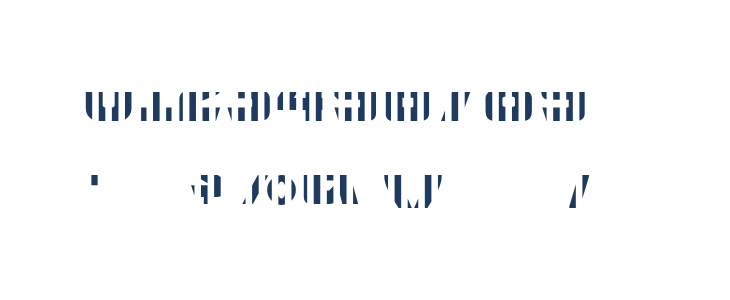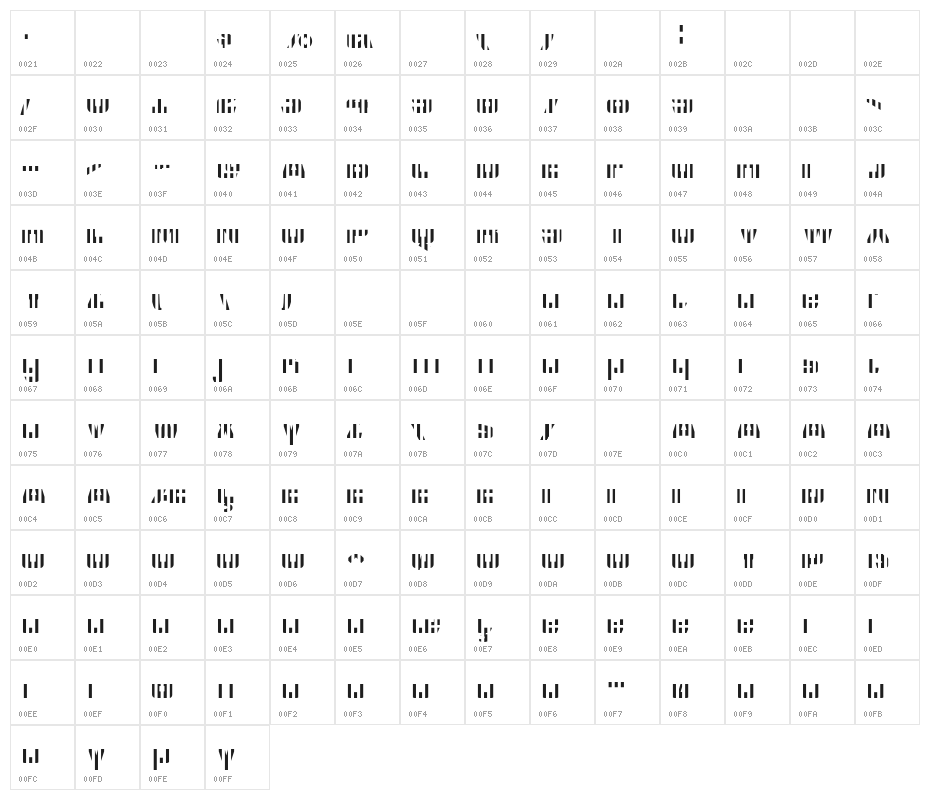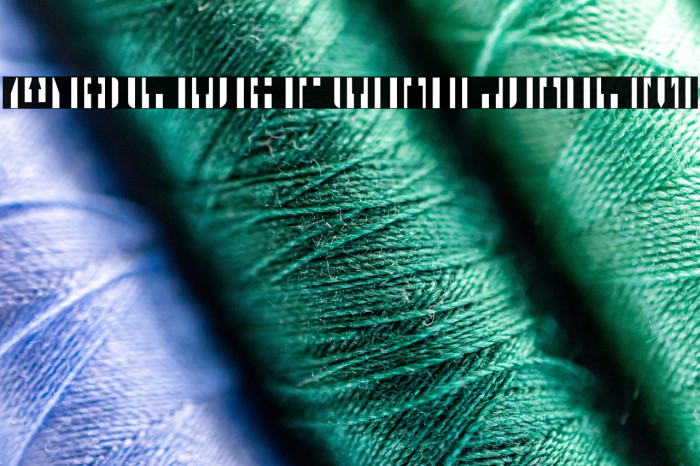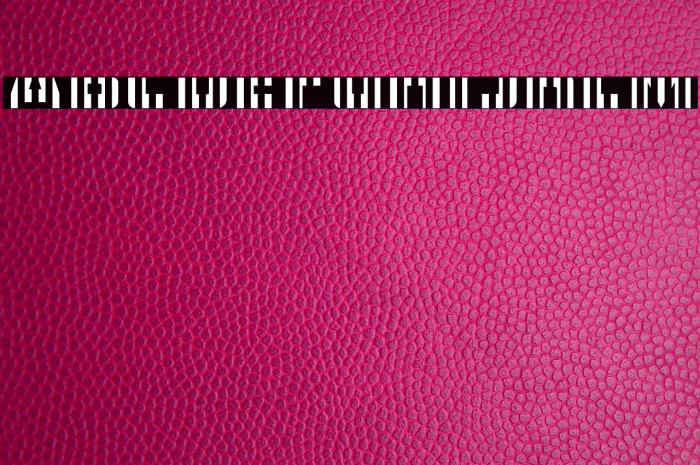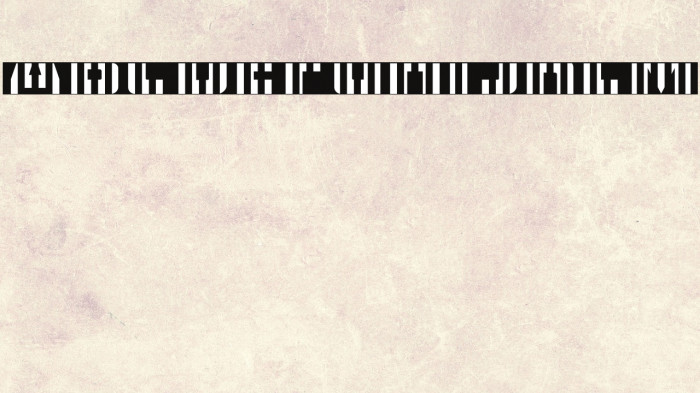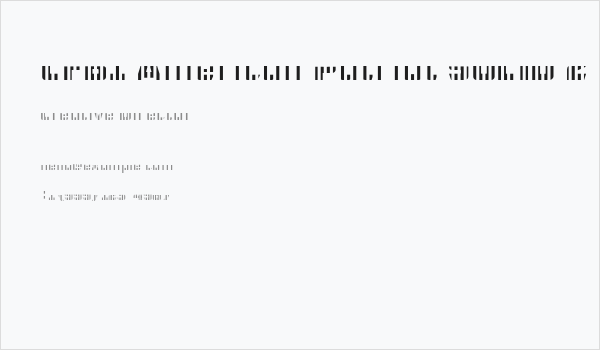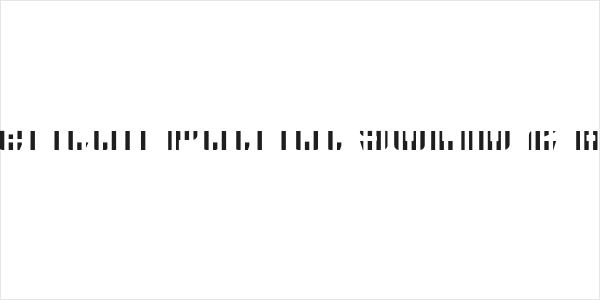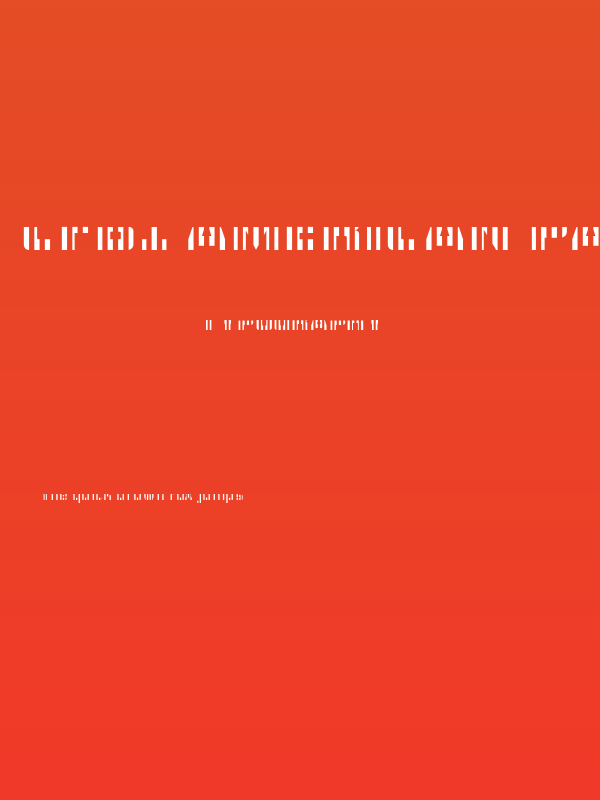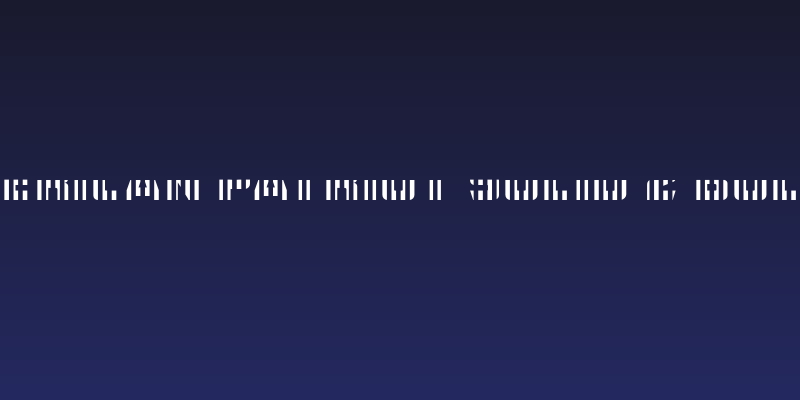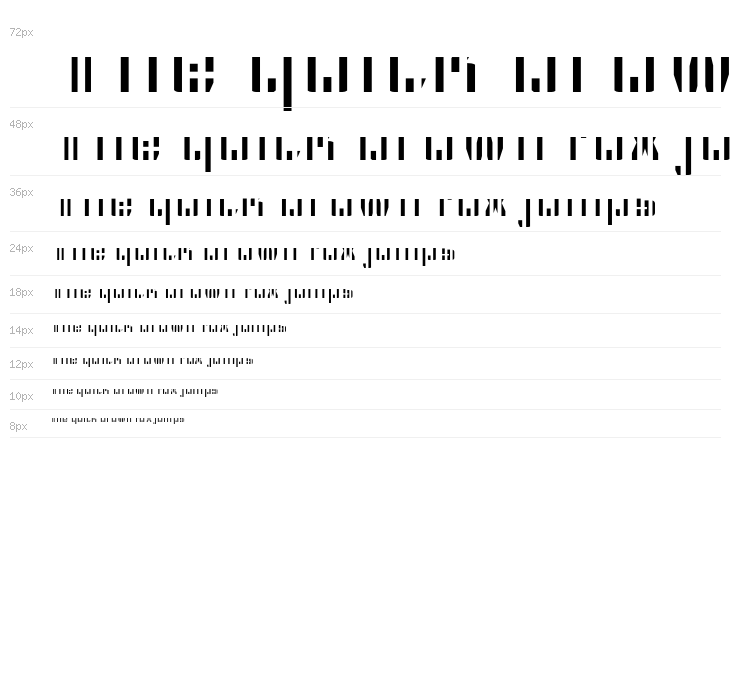
CFB1 American Patriot SOLID 2 Bold Italic Font
CFB1 American Patriot SOLID 2 Bold Italic Description
This font features a bold and italicized style with a distinct stencil-like appearance. The characters are designed with sharp, angular cuts that create a sense of ruggedness and strength. The uppercase letters are particularly striking, with a strong presence that commands attention. The lowercase letters maintain the same boldness, ensuring consistency throughout the text. The numerals and special characters are equally bold, making them stand out in any design. This font is ideal for projects that require a strong, impactful visual statement.
| Proposed Projects | Ideal for military-themed designs, posters, logos, and branding that require a strong, impactful look. |